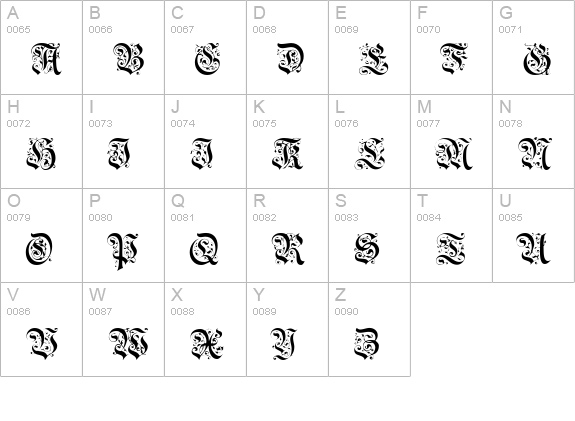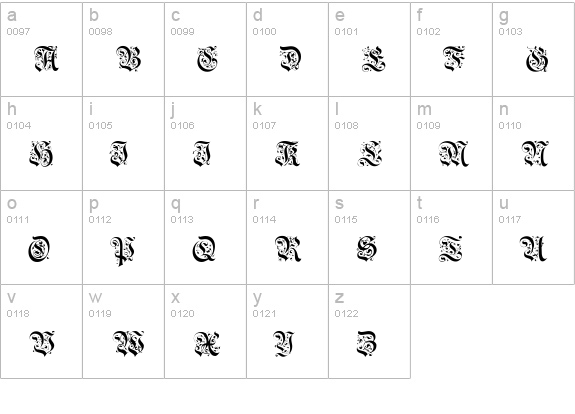
AeternaCapsSSK Font Details
AeternaCapsSSK is a stunning and elegant font that exudes a timeless charm. Its intricate details and delicate curves give off a sophisticated and refined feel, making it perfect for projects that require a touch of class. This font is ideal for luxury branding, invitations, or any design that calls for a touch of sophistication. The beauty of AeternaCapsSSK lies in its versatility - it can be used for both modern and classic designs, adding a touch of elegance to any project. Its timeless appeal makes it a favorite among designers looking for a font that will stand the test of time. Best of all, AeternaCapsSSK is available for free download at FontsMarket.com. This means that you can easily access this exquisite font and use it in your projects without any cost. Don't miss out on the opportunity to add a touch of elegance to your designs with AeternaCapsSSK!